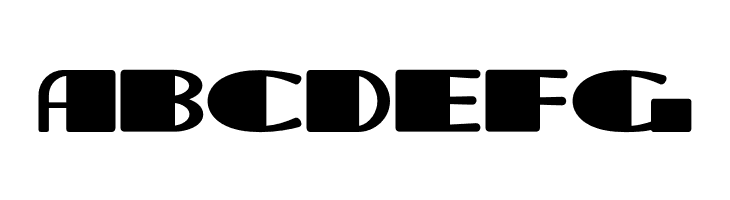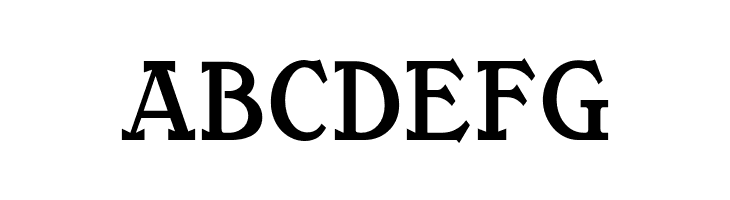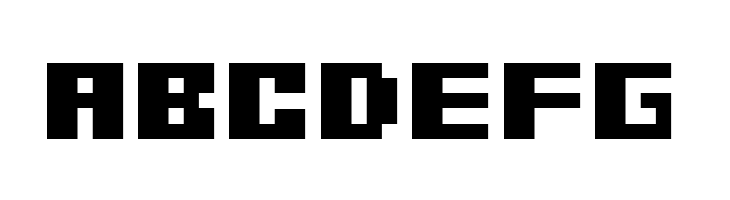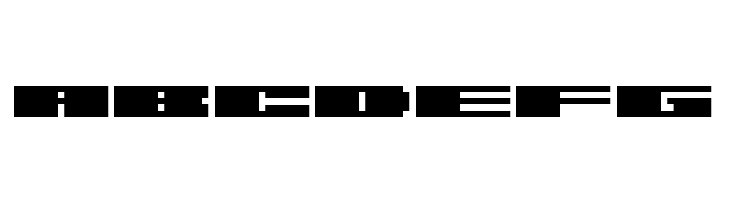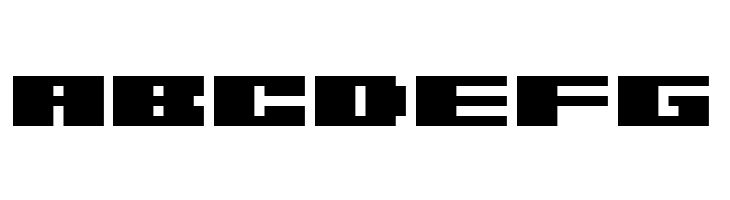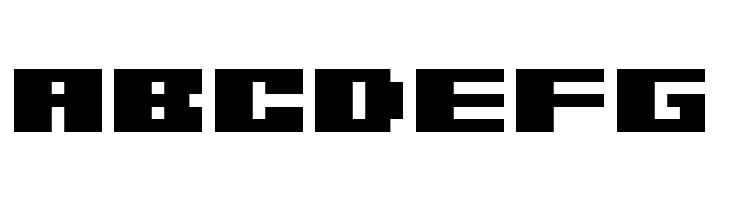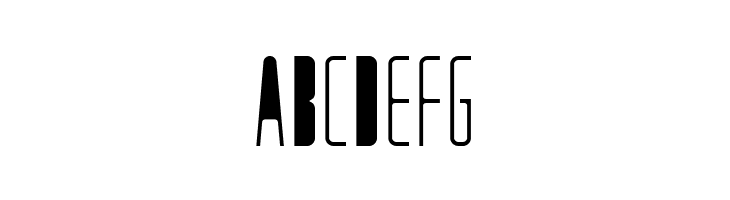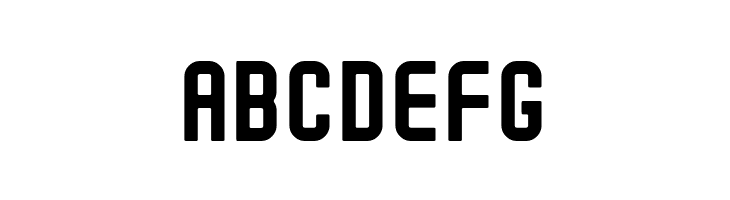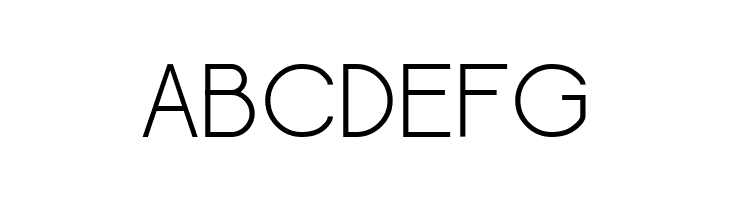
• SystemSevenLight
A bold, geometric font with a digital, pixelated style.
• SystemSevenMedium
A bold, geometric font with a pixelated, retro digital style.
• SystemSevenThin
A bold, pixelated font with a modern, digital aesthetic.
• SystemSevenUltra
A bold, geometric font with a futuristic, digital aesthetic.
• TanglewoodTalesNF
A bold serif font with a classic yet modern style.
• TanreiKT
An elegant and decorative script font with intricate swirls and flourishes.
• TaraBulbousNF
A bold, playful font with exaggerated curves and a retro-modern appeal.
• TDA140607AL
A modern font with high contrast and geometric influences, ideal for striking designs.
• TeaPot
• TekutekuAL
A bold, geometric font with rounded edges and consistent stroke widths.